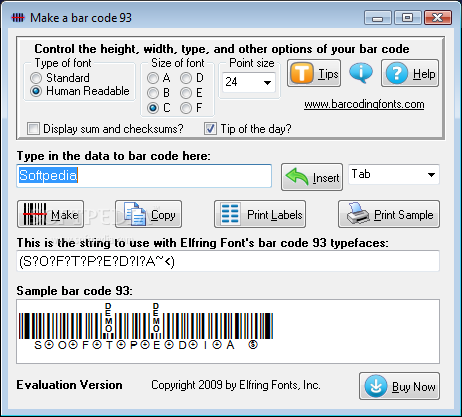
Bar Code 93 Font Set Description
Bar Code 93 Font Set allows you to print your own bar code 93 from Windows!
This TrueType and PostScript barcode font set adds the ability to print bar codes to virtually any Windows program. It does require a checksum, and lets you encode numbers (0-9), upper case letters (A-Z), and some special characters (A-Z, 0-9, space, $ % + - . /). A full ASCII mode is also available that covers the entire ASCII character set. This bar code set lets you print your own 93 codes on your product packaging, shipping labels, or you can print sheets of labels with 93 barcodes using our templates and your word processor.
Code93 was introduced in 1982, as a high density alternative for bar code 3 of 9. It offers virtually the same character set as barcode 3 of 9, but requires a checksum. Code 93 also offers a Full ASCII mode that is not dependent on your bar code reader, another enhancement over barcode 3 of 9. Our bar code utility and macros calculate checksums and automatically format barcodes for you.
This bar code package includes both a standard (barcodes only) and a human readable (bar codes with text or numbers below) versions of barcode 93. Each of these scalable bar code fonts comes in six different aspect ratios, so you can vary the height and width of the bars independent of each other. This lets you print barcodes with the same height, but with a different bar thickness.